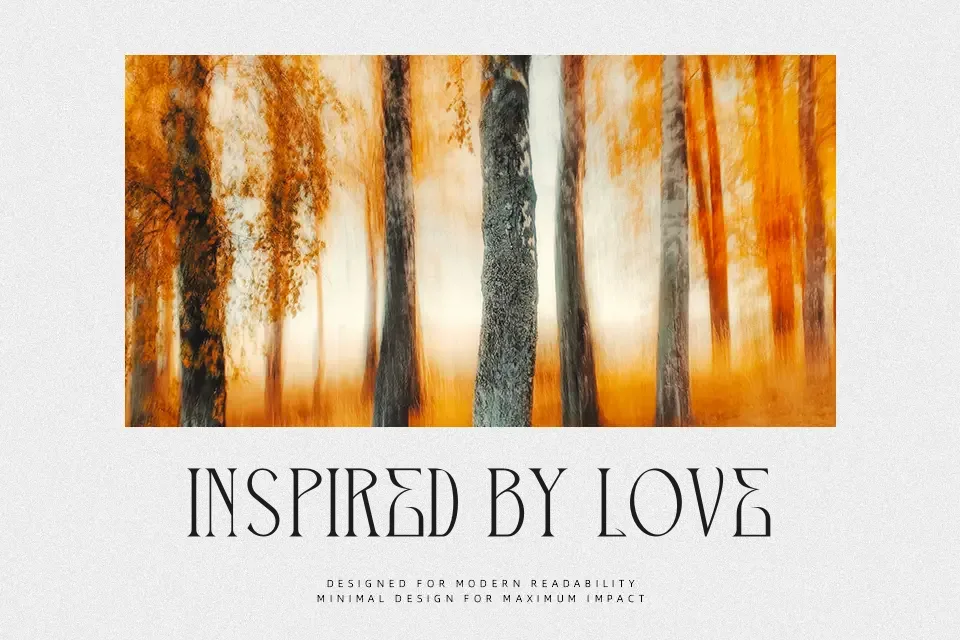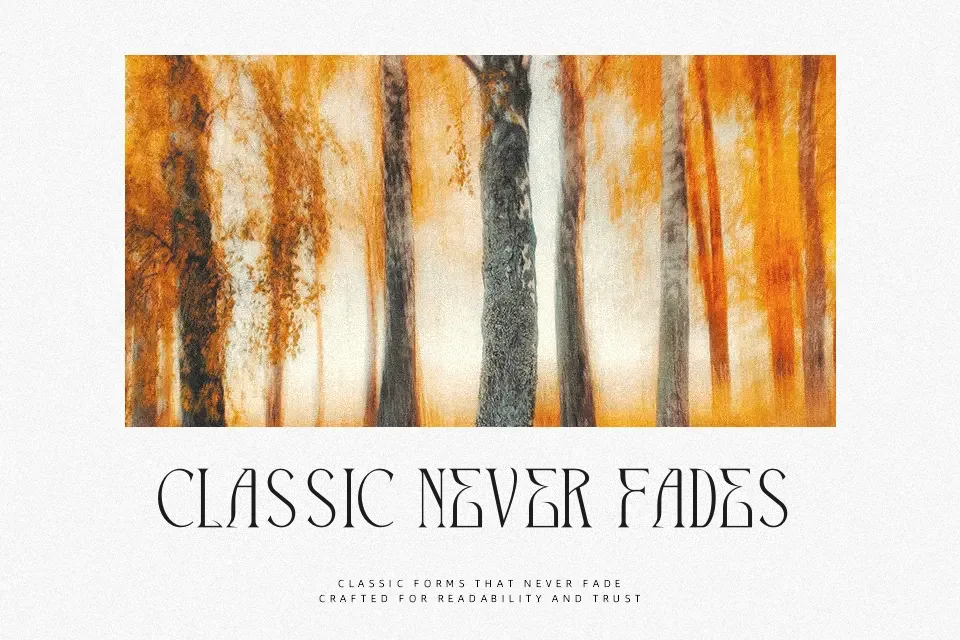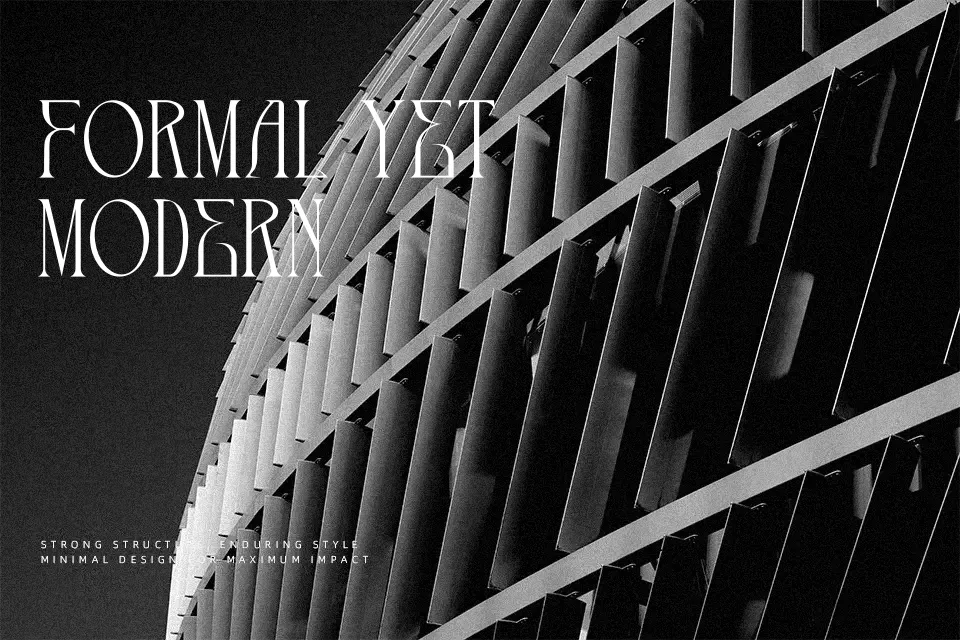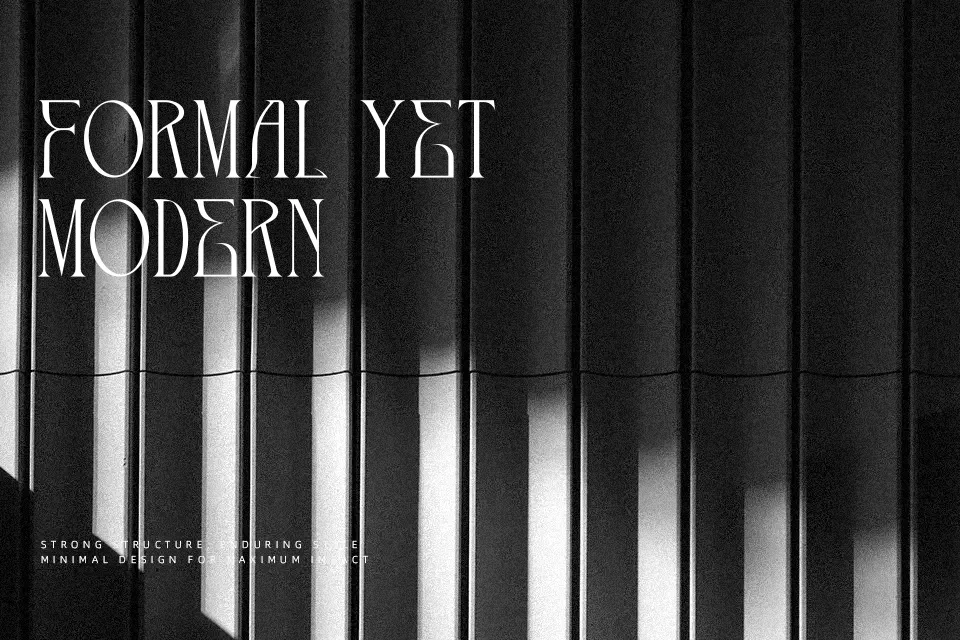
The Cronicle Font
The Cronicle Font commands immediate visual attention through high stroke contrast, pronounced vertical stress, and sharp serifs that evoke classic modern editorial typography. Each character exhibits disciplined proportions and controlled spacing, establishing a rhythmic cadence suited for prominent display compositions. The letterforms remain easy to distinguish in short display text, though hairline strokes and delicate joins quickly lose definition when scaled down to small sizes. Dense editorial layouts and extended body passages will suffer from visual fatigue due to the stark weight variation. As a result, the design excels primarily in large headings where its sculptural qualities can breathe comfortably.
luxury packaging design
magazine cover headlines
boutique brand marks
exhibition title posters
continuous paragraph text
mobile interface labels
dense tabular data
technical document body
Perfect for branding, headline, and packaging, with a classic and display style.